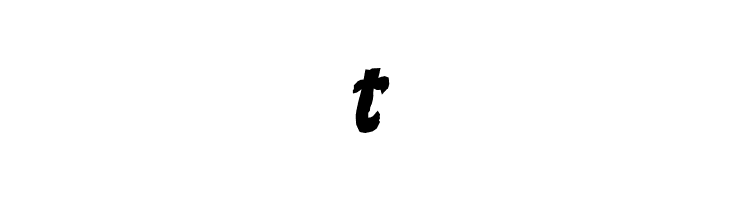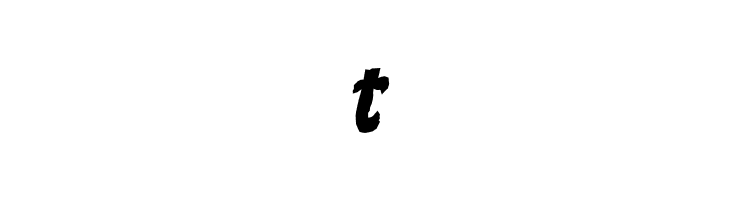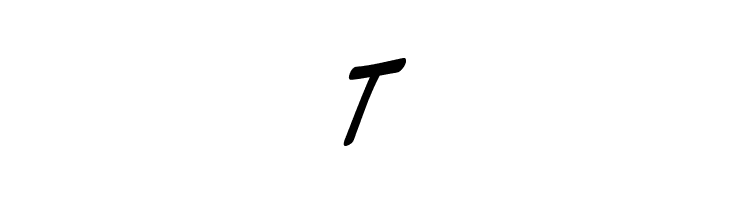
A bold, hand-drawn font with rough, textured edges and a lively, informal style.
A playful, handwritten-style italic font with smooth, medium-thick strokes.
A playful handwritten font with a casual, pen-like style.
A bold, jagged font with a horror-inspired, hand-drawn style.
A bold, jagged, and italic font with a horror-themed aesthetic.
A bold, jagged, and italicized font with a horror-themed, edgy appearance.
A bold, jagged font with a horror-inspired, hand-drawn style.
A bold, italicized font with dynamic and energetic strokes.
A bold, slanted font with a dynamic and energetic style.
A bold, italicized cursive font with a dynamic and energetic style.